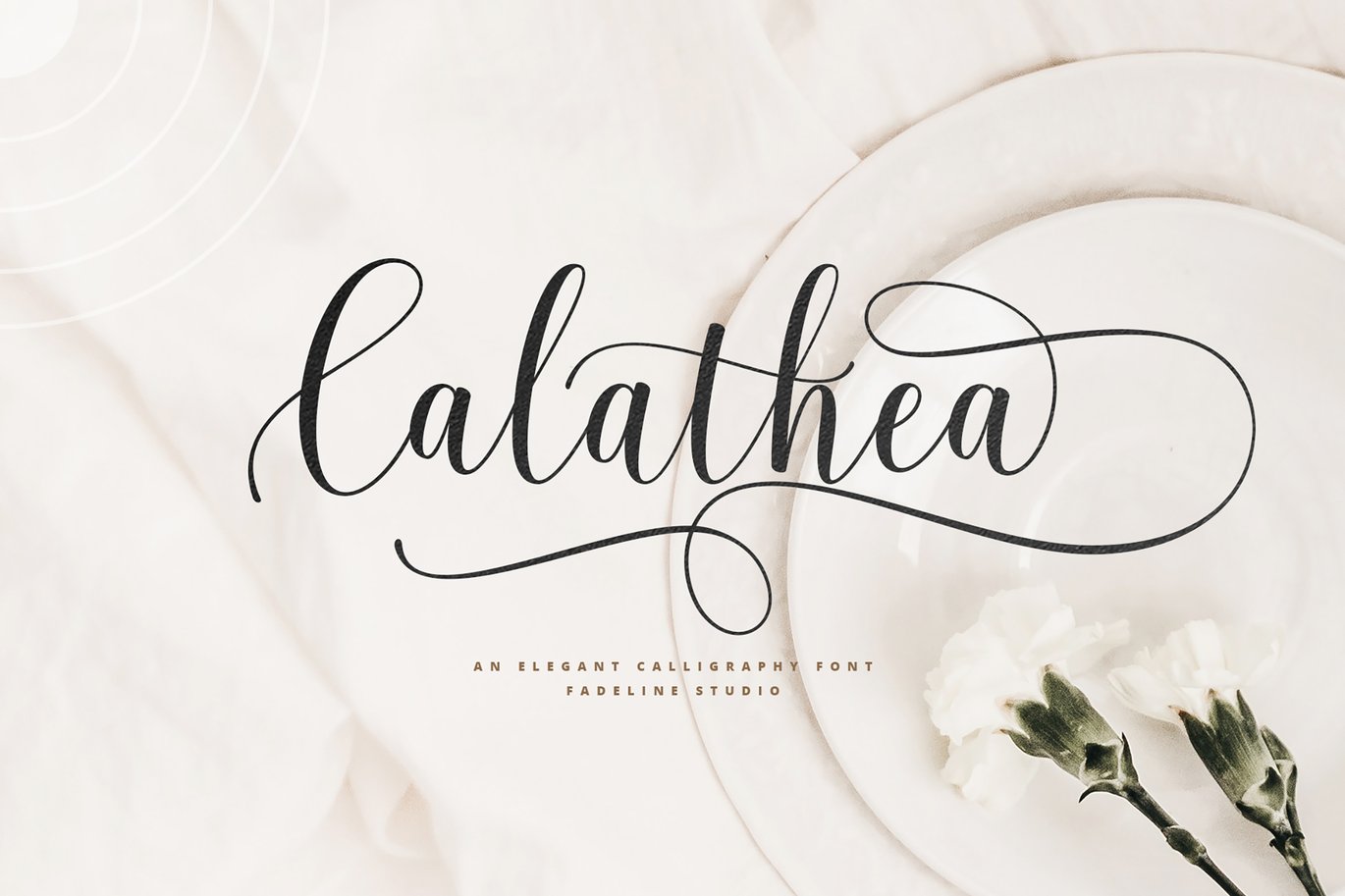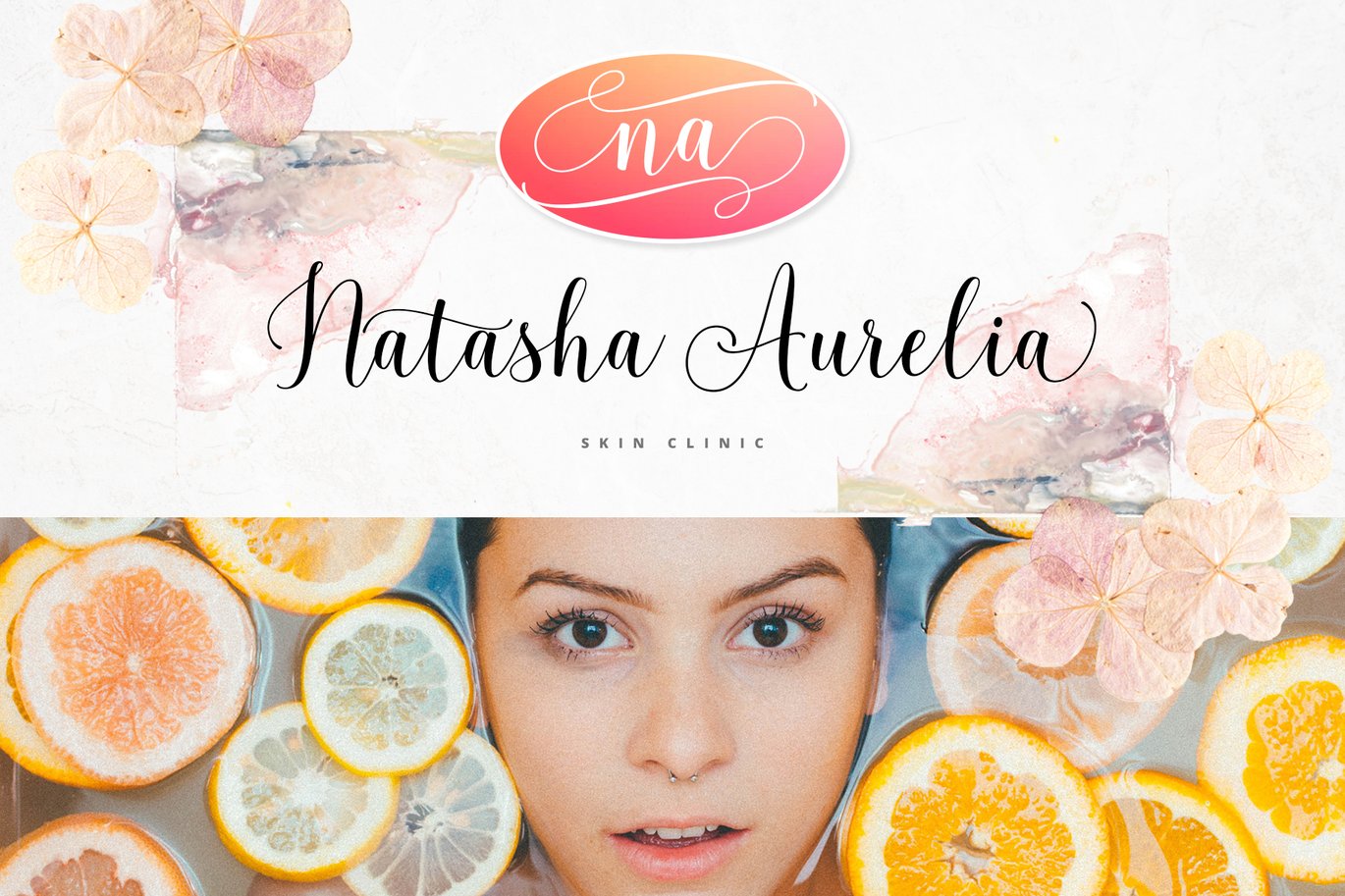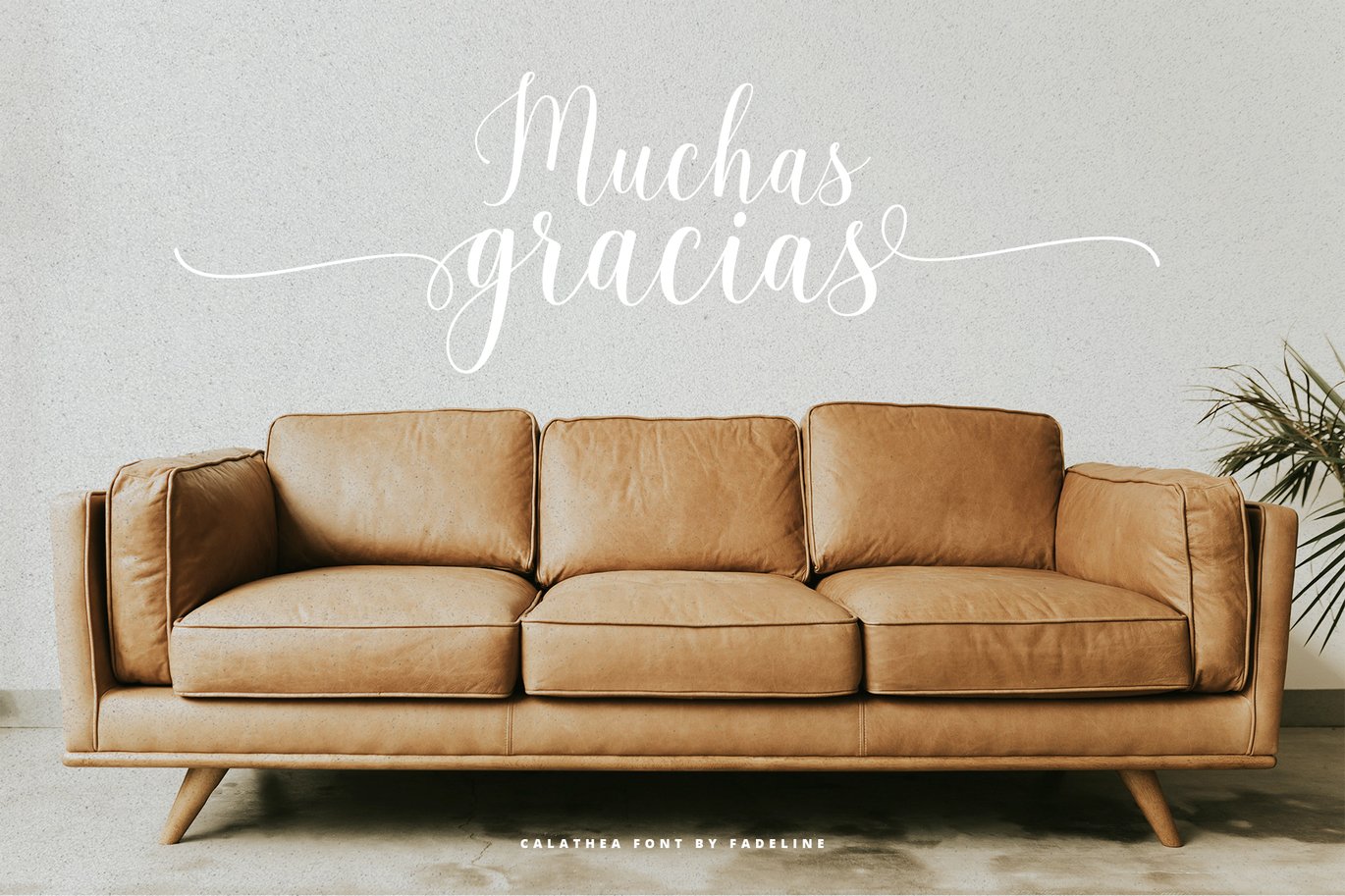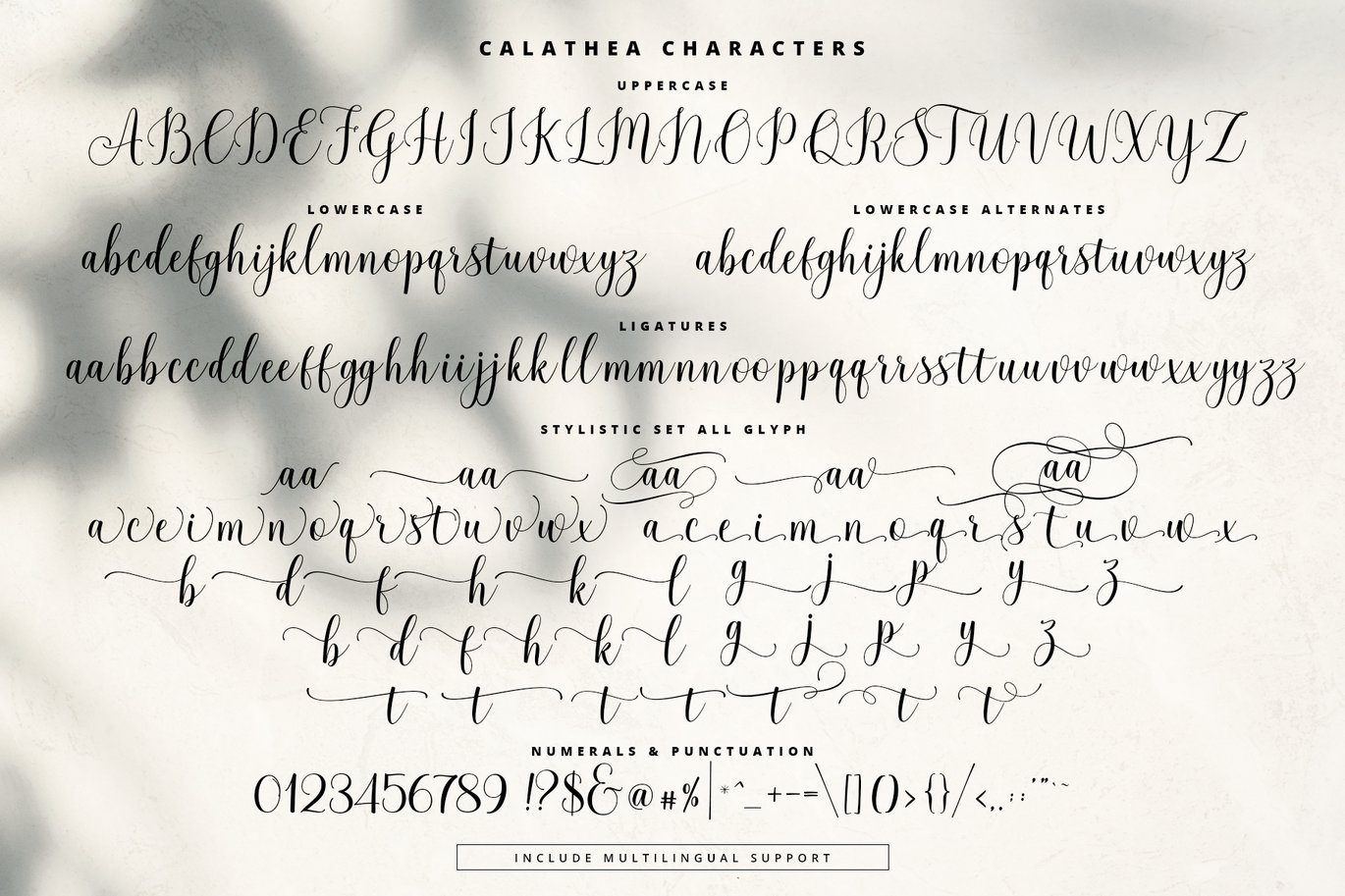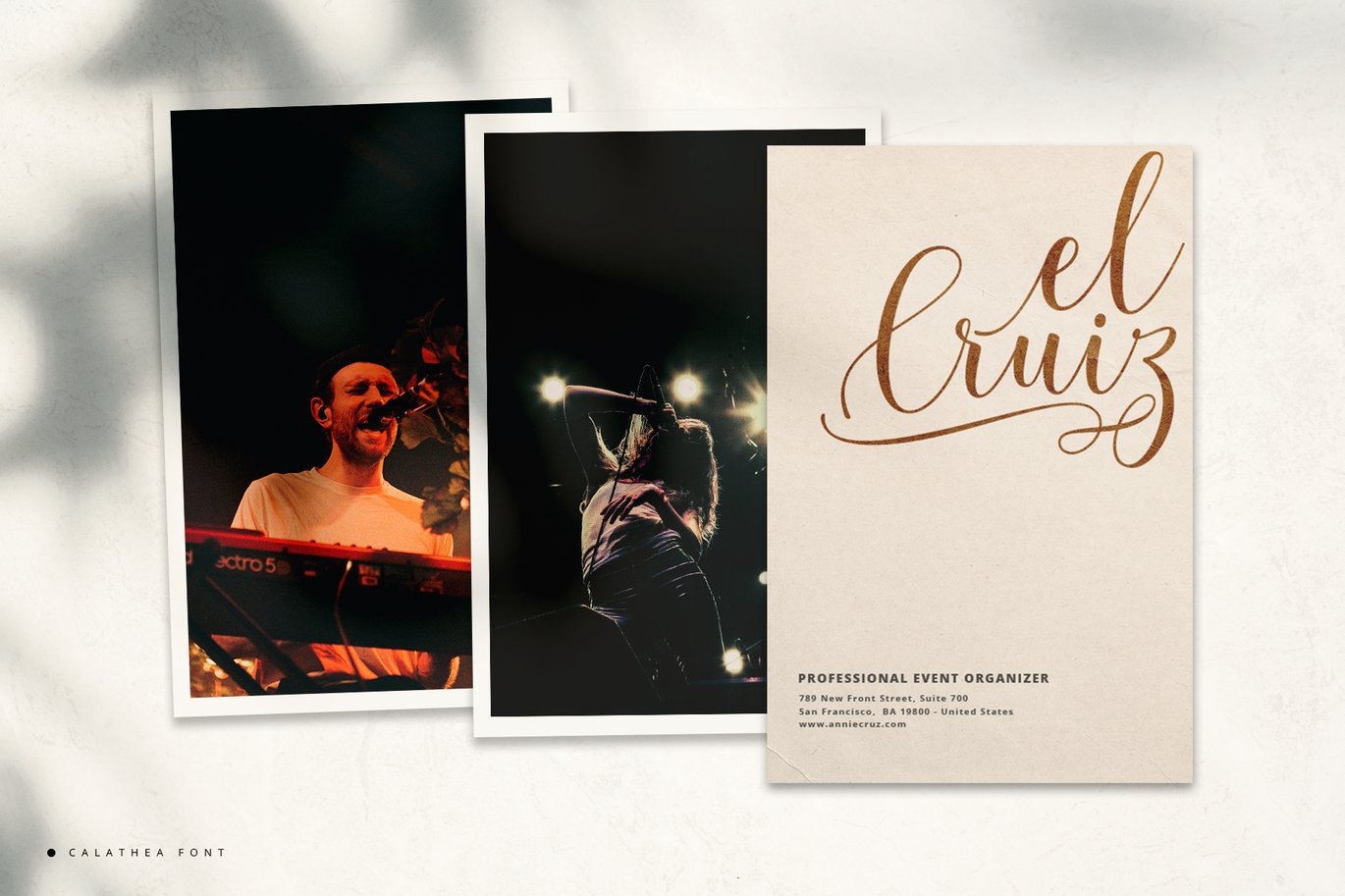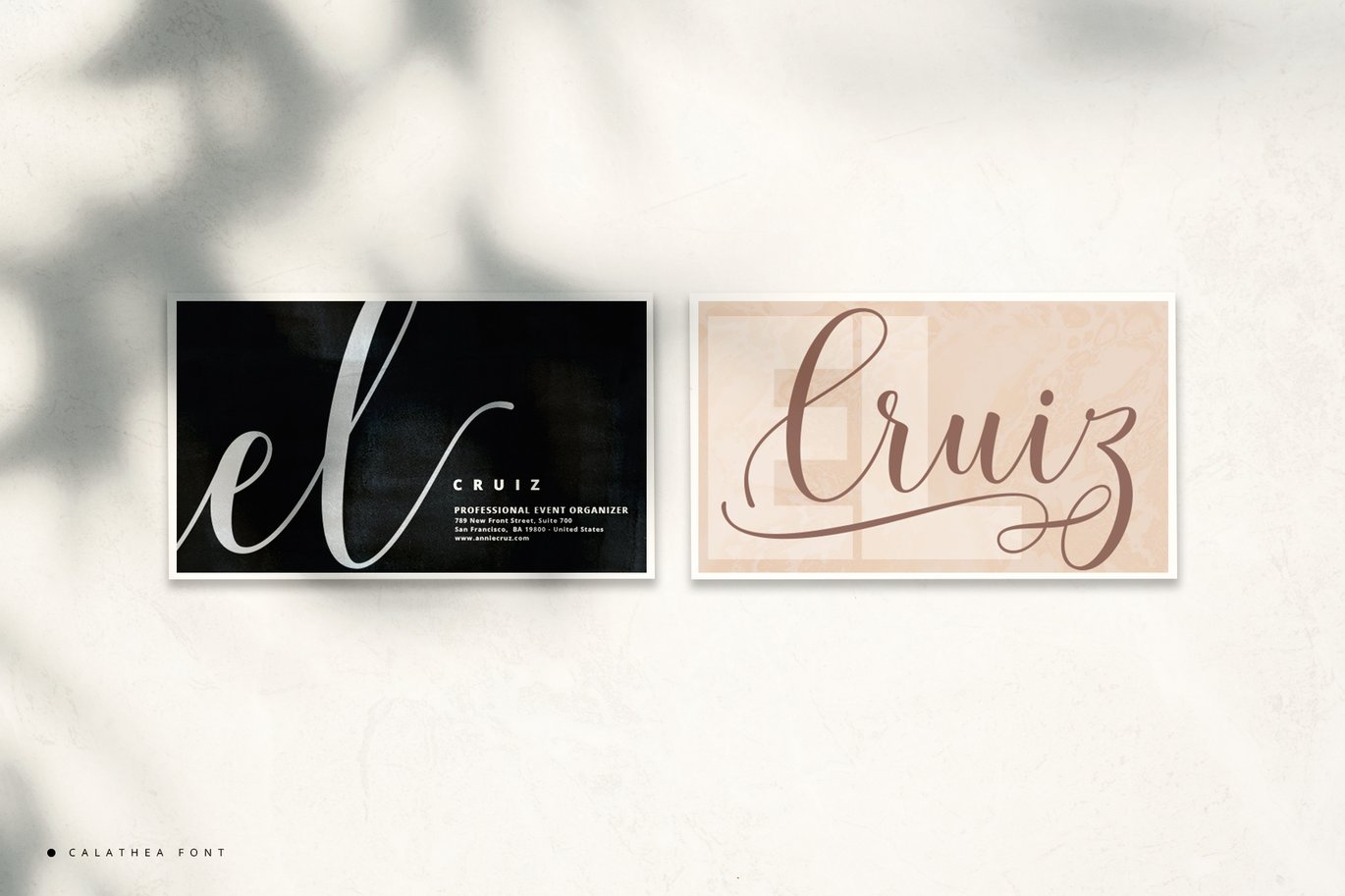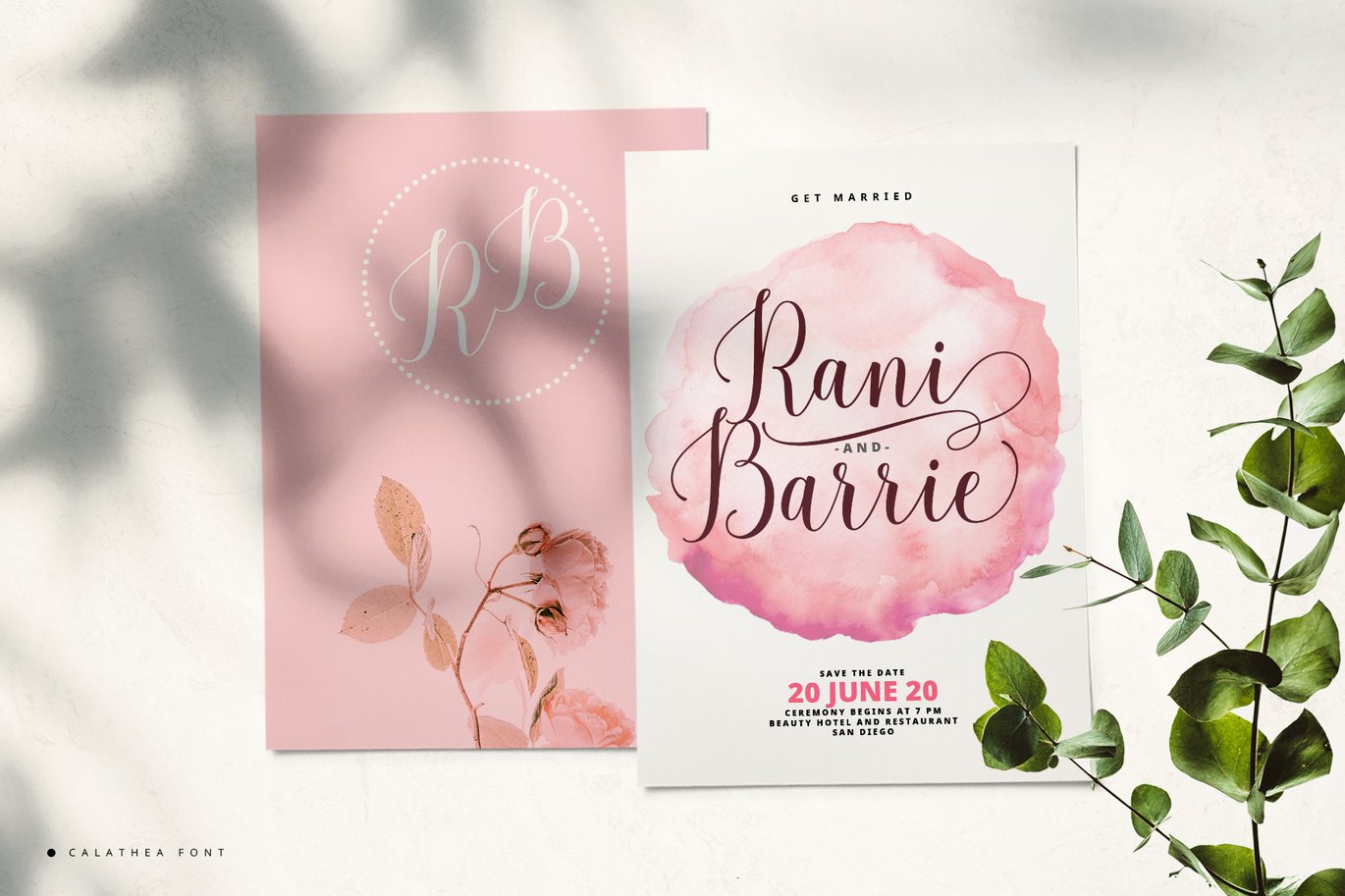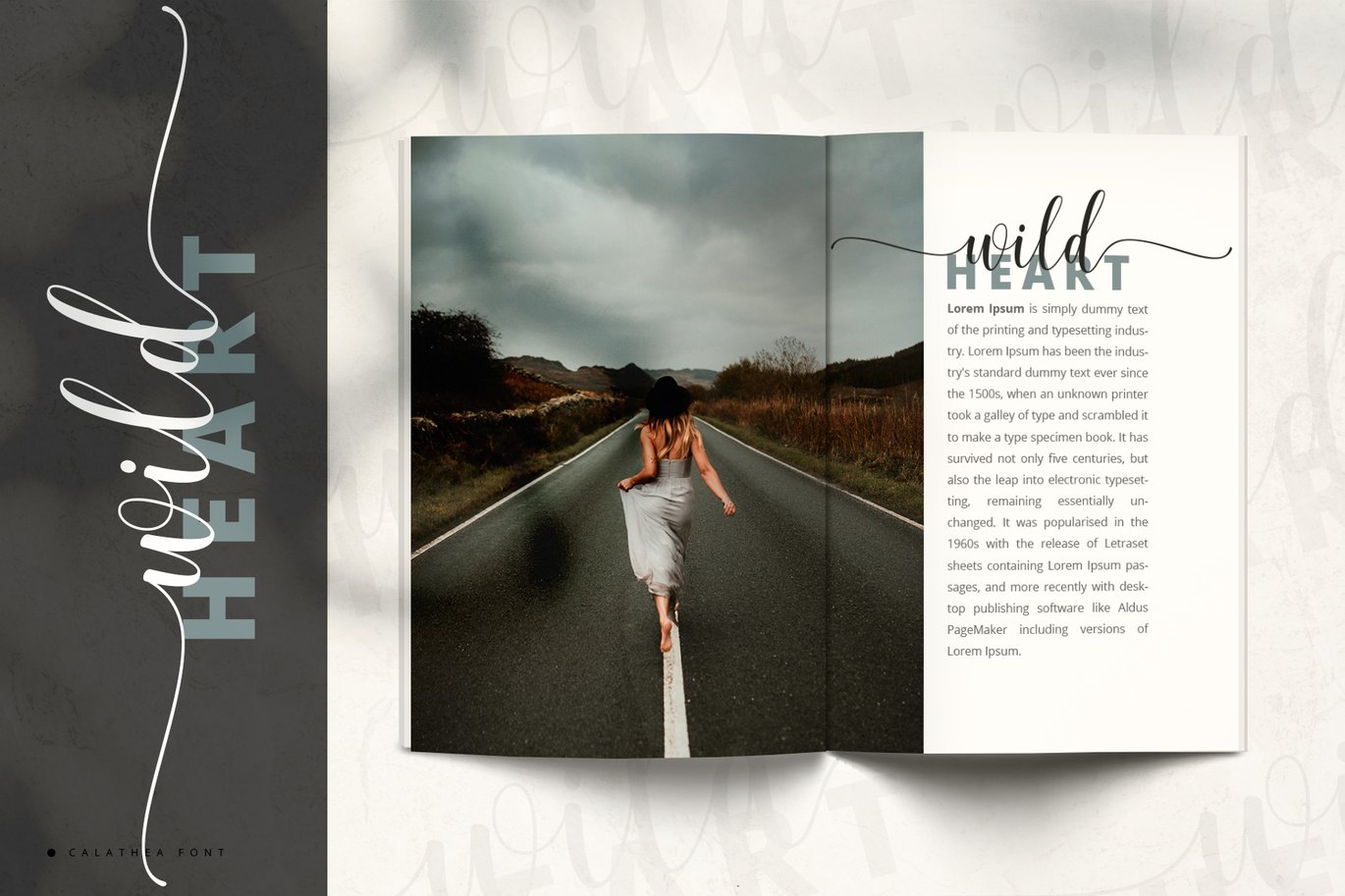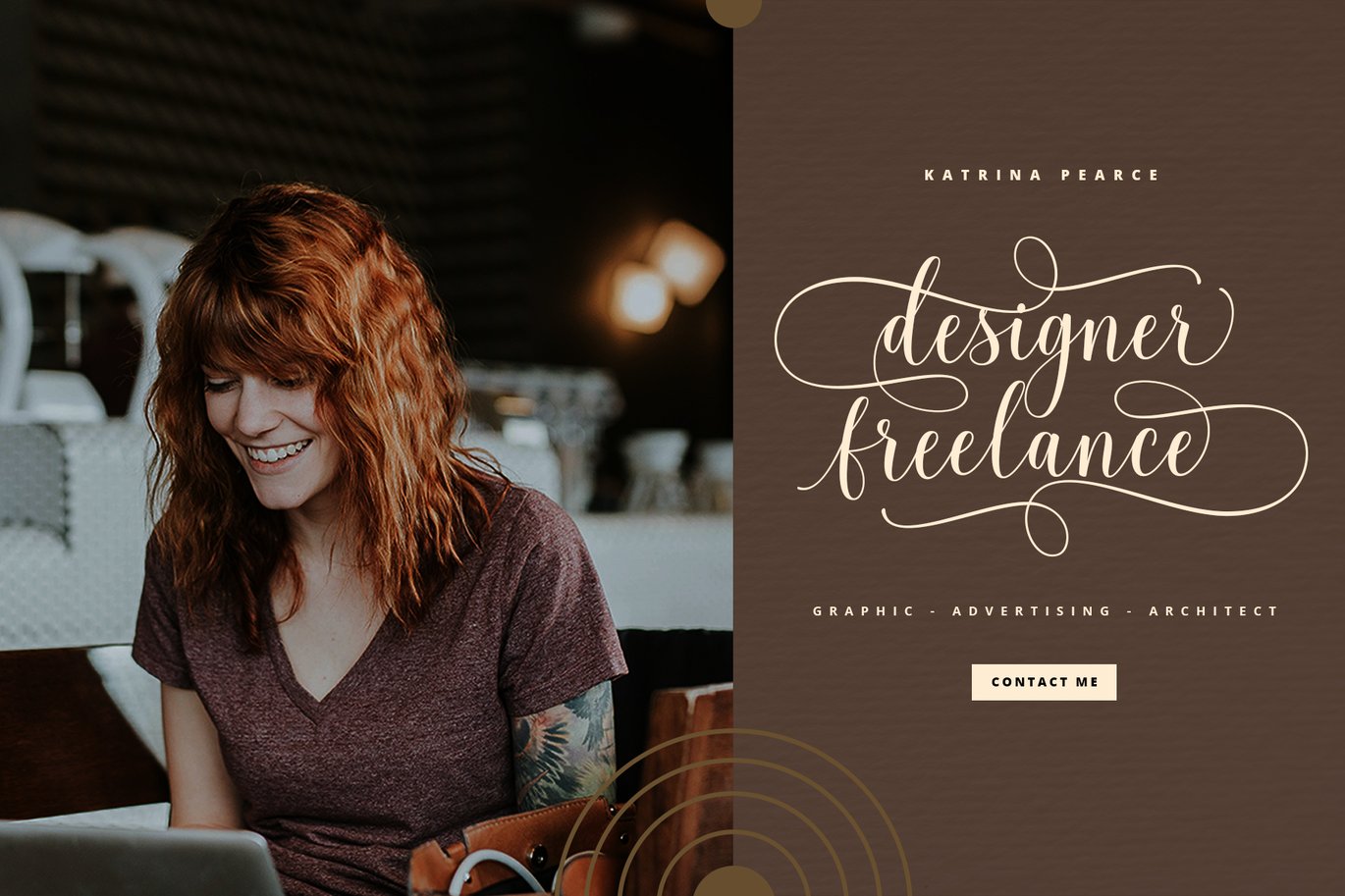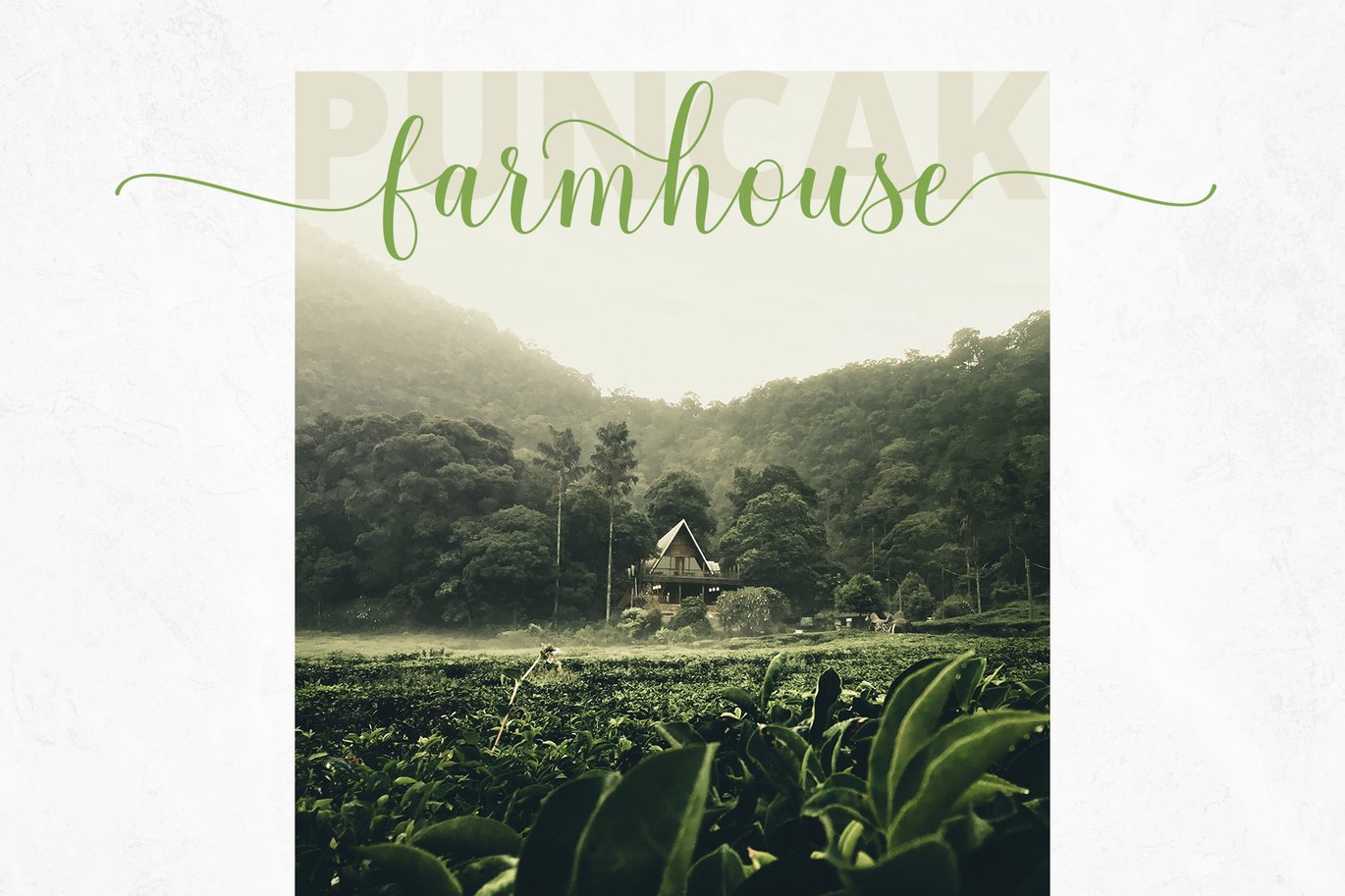
Calathea – Elegant Calligraphy Font
Introducing Calathea! This is an elegant calligraphy font that has a casual and luxurious style. This is an upright script font that is made slowly and thorough which aims to convey the character of the writing that is elegant, neat, simple, graceful, firm and still stylish. Available 584 glyphs in it! So, you can get used it freely and follow the current trends.
With a style like this, this font will be suitable in use for logo’s, branding projects, homeware designs, product packaging, mugs, quotes, posters, shopping bags, logo’s, t-shirts, book covers, name card, invitation cards, greeting cards, and all your other lovely projects.
You can use this font for your job very easily. Because there are many features in it. Contains the complete set of lower and uppercase letters, punctuation, numbers, web fonts, and multilingual support. This font also includes several ligatures and alternative style Stylistic Set For those of you who have software that is capable of working OpenType (Corel Draw / Photoshop / Illustrator / InDesign).